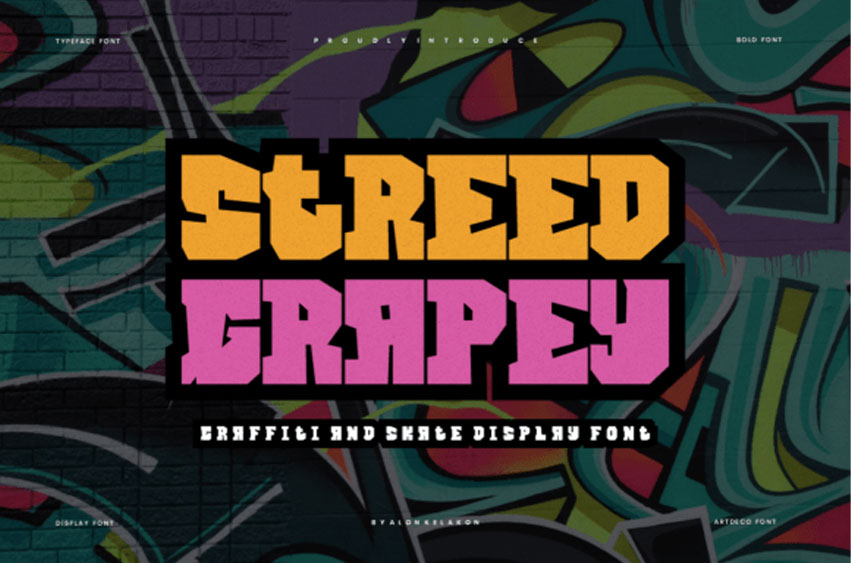
Streed Grapey Font
Streed Grapey Font is unique. Ready to use for your design like labeling, movie scenes, posters, movie titles, gigs, album covers, logos, and much more.